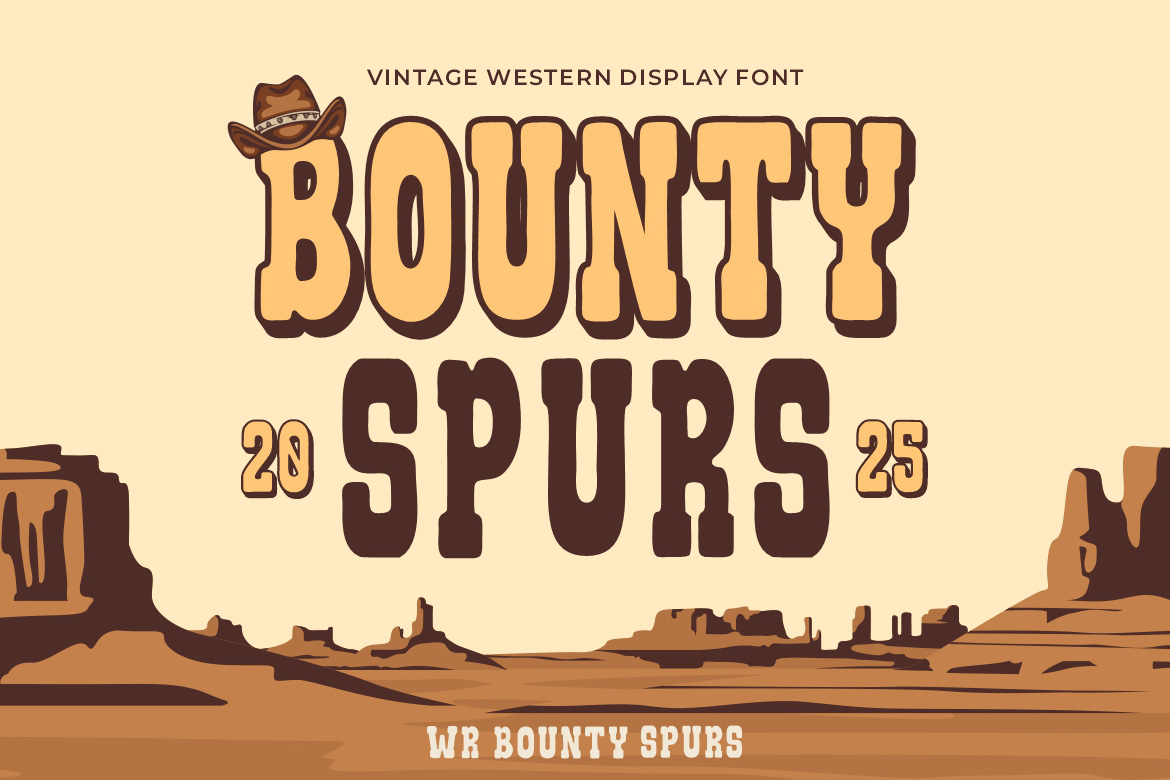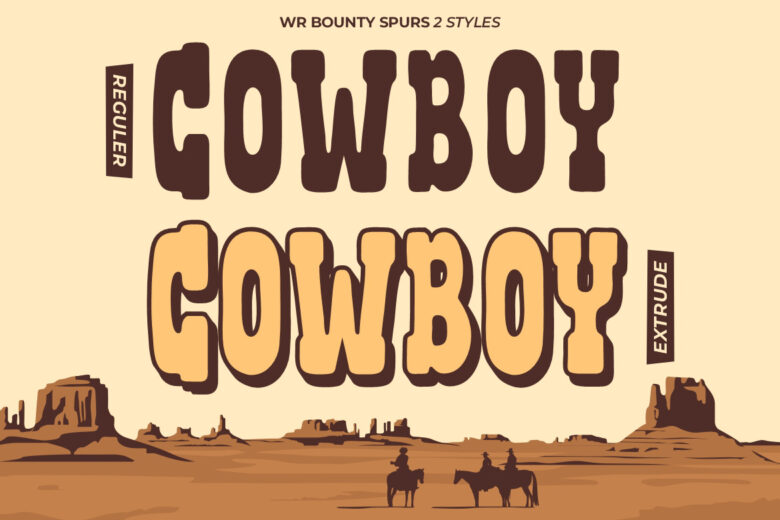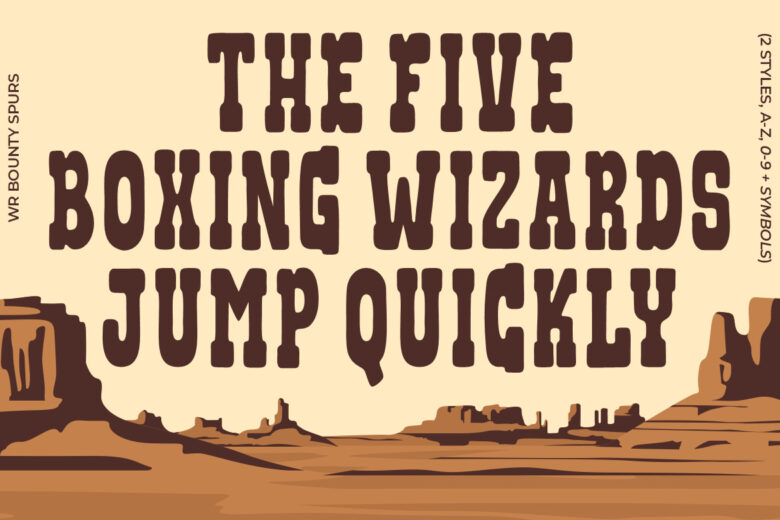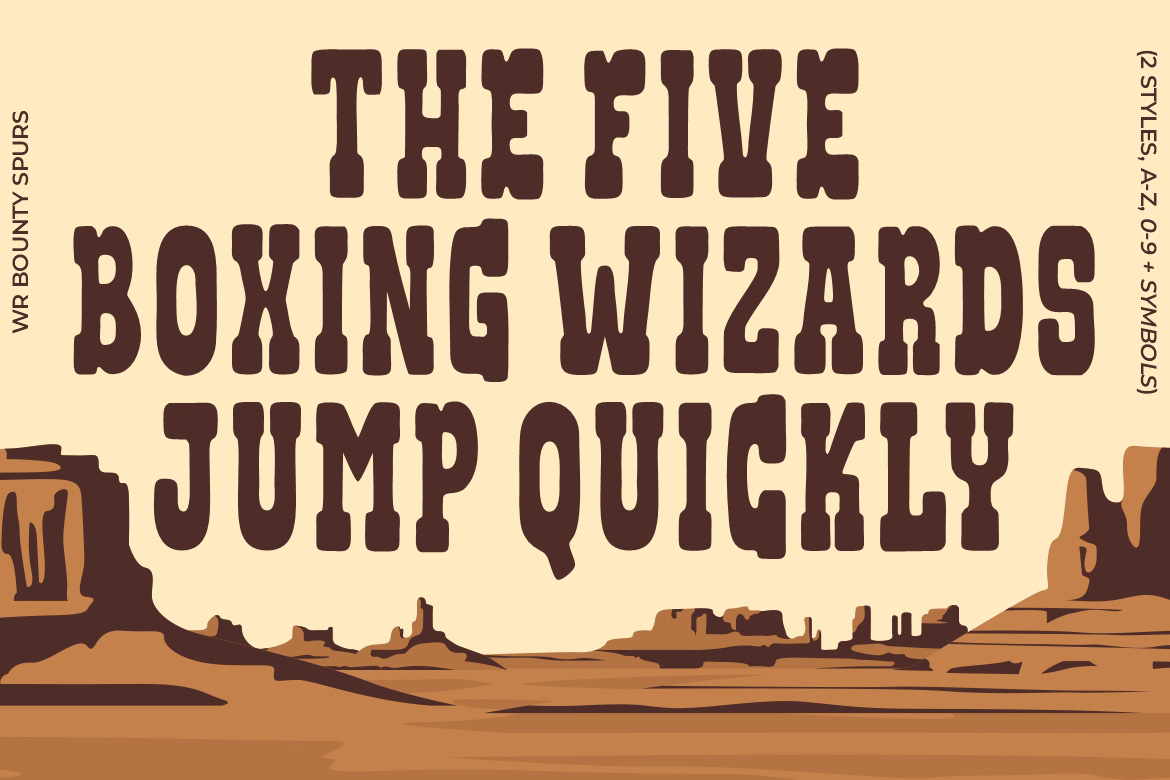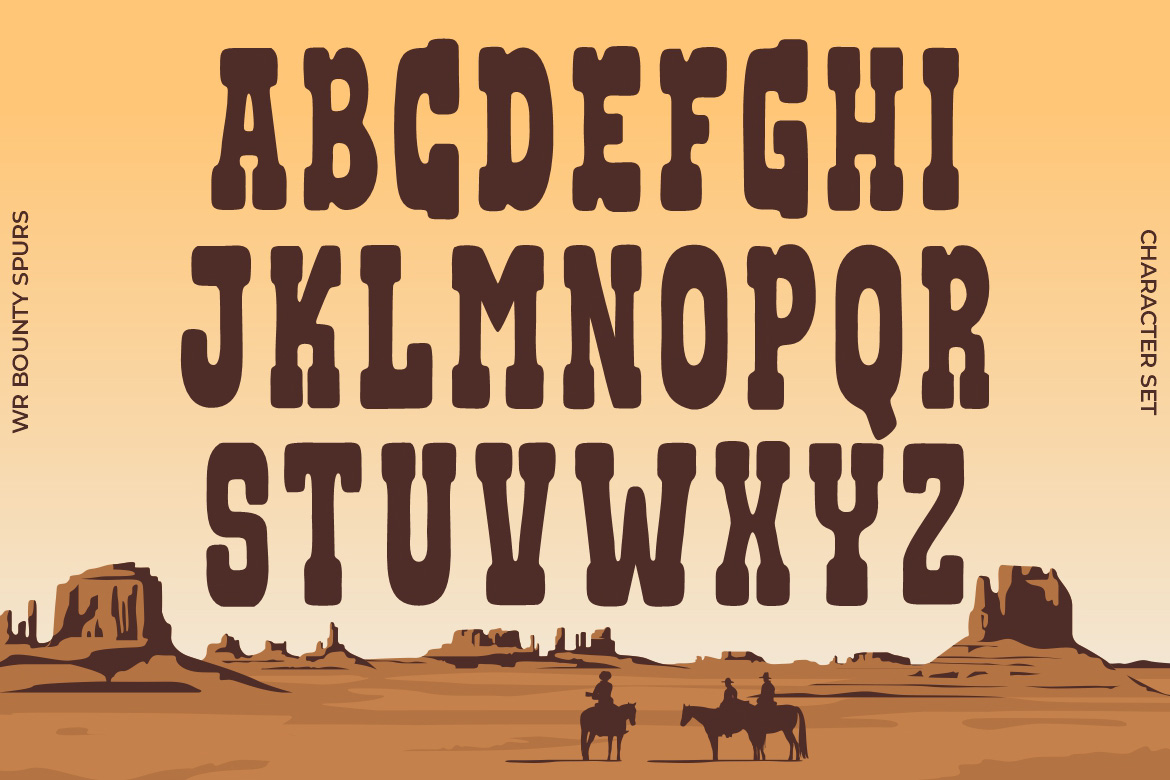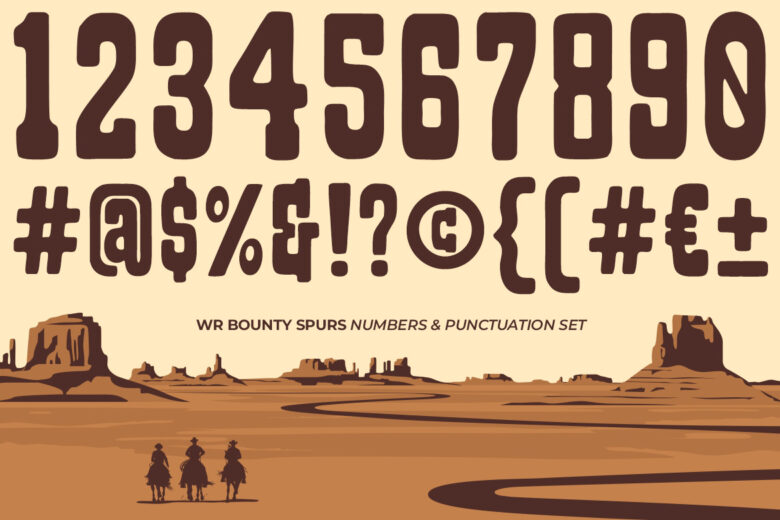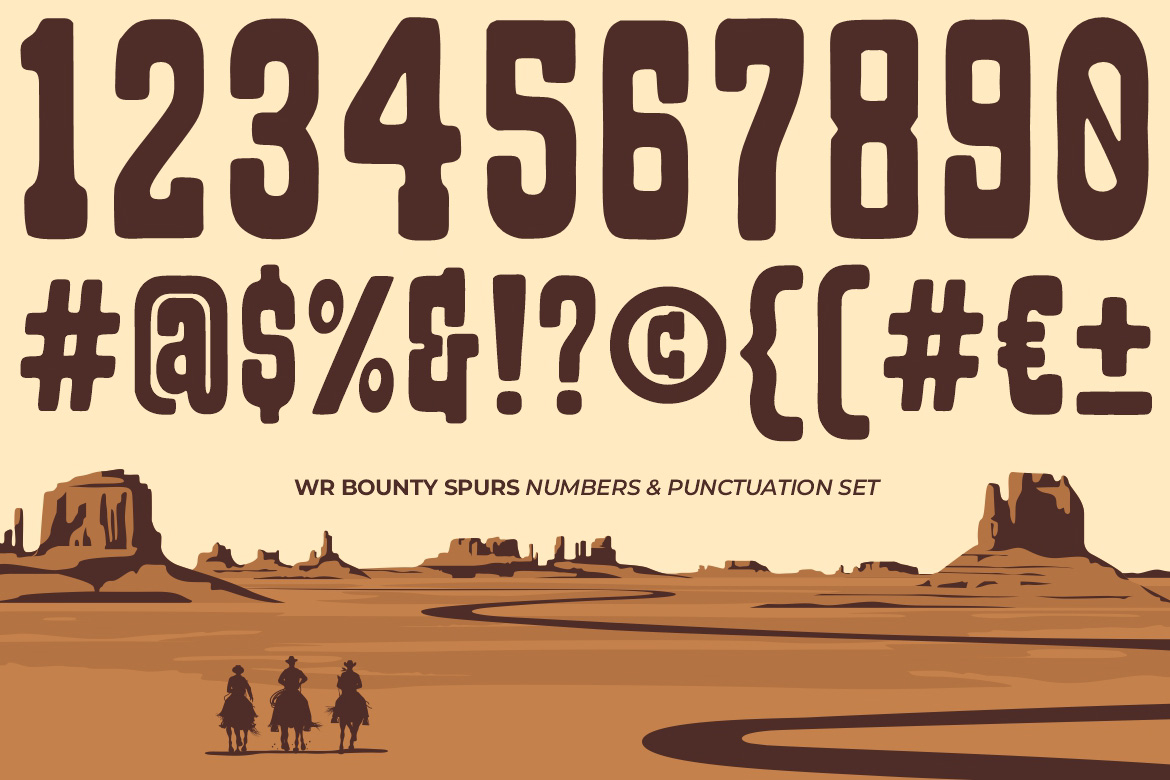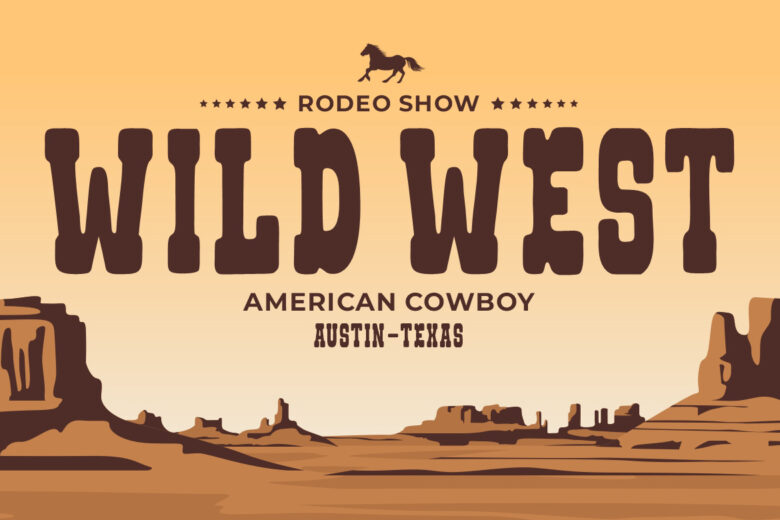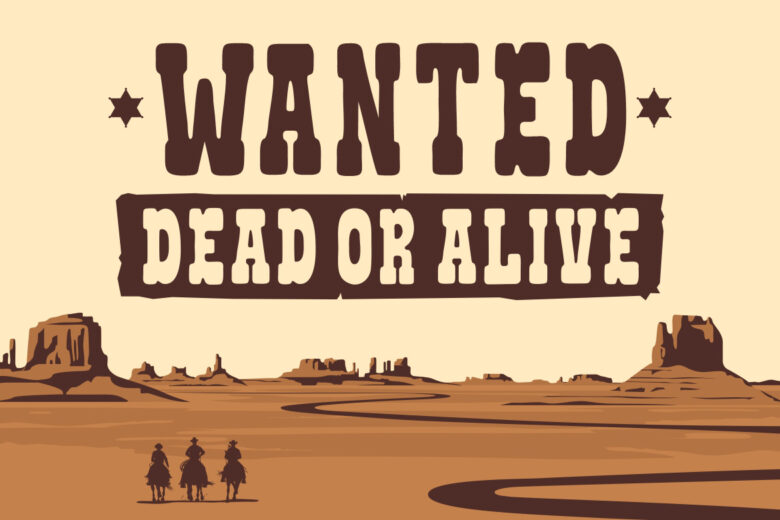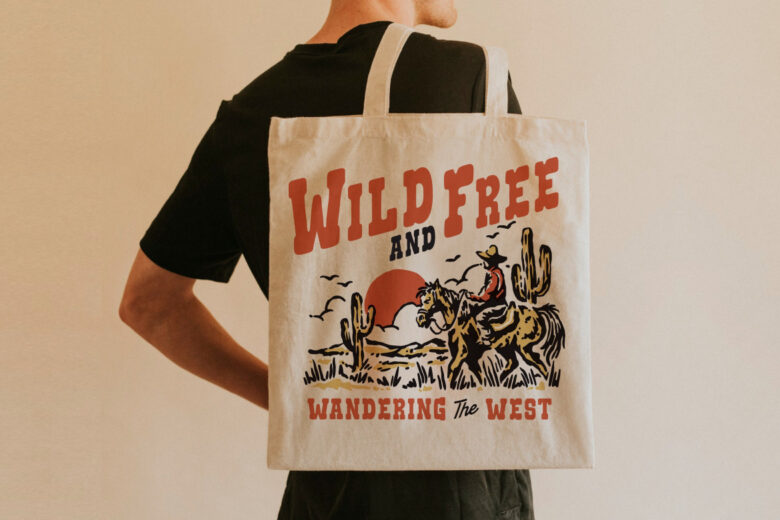
WR Bounty Spurs
WR Bounty Spurs Extrude
WR Bounty Spurs is a wild western display font with plenty of attitude. Packed with cowboy flair and vintage charm, it comes in two bold styles (Regular and Extrude)so you can layer it up for extra punch. Perfect for posters, logos, or anything that needs a bold yeehaw moment. Giddy up your designs are about to ride in style!